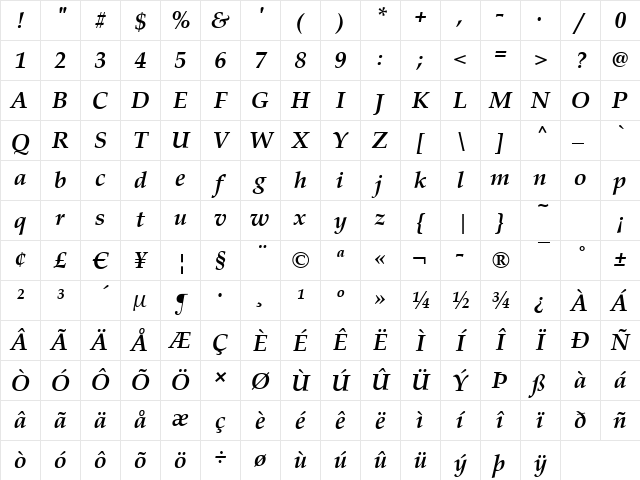
Palladio BoldItalic
Palladio Family
Design Context for Palladio
Palladio is a composed and adaptable typeface that performs quietly and consistently across a wide range of design contexts. The slanted form adds forward momentum and visual energy. Its bold stroke weight gives it real presence on the page.
Pro Tip: Use Palladio for emphasis, pull quotes, and subheadings where its slanted energy can add rhythm to the layout.